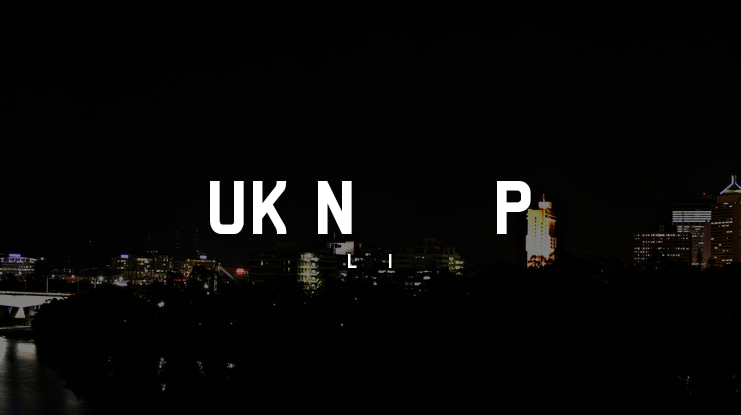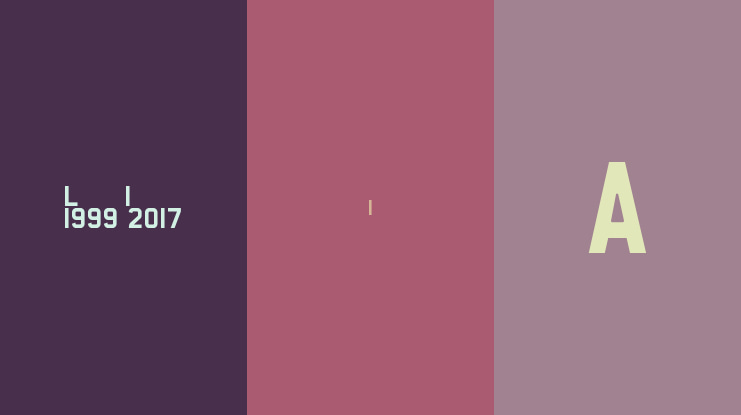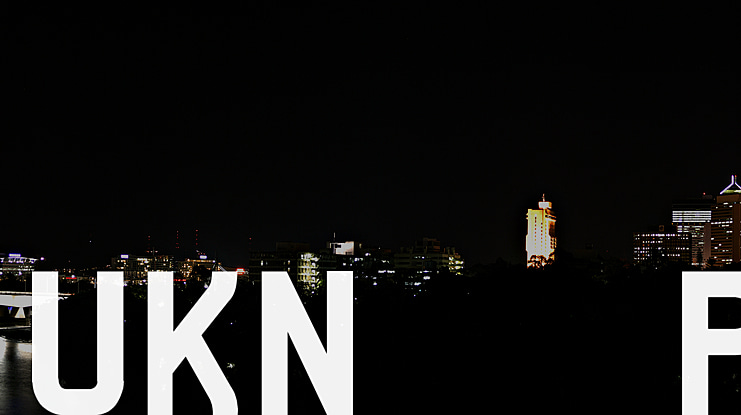
UK Number Plate Font
Probably the UK's most popular number plate font. As used by the DVLA (gov.uk), HPI, Aviva, EuroCarParts and many more.
UKNumberPlate font